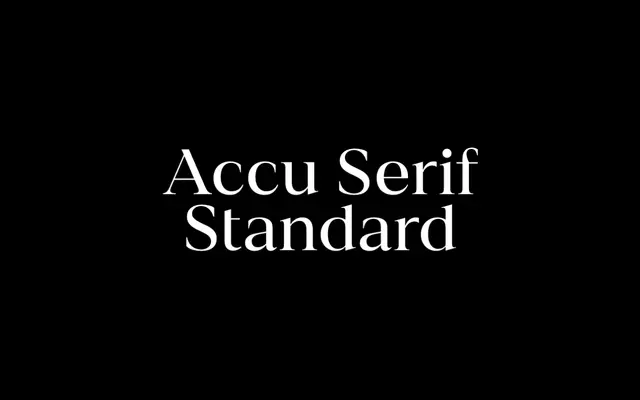
af Accu Serif
af Accu Serif specimen from a.Foundry
A contemporary serif with nine weights, matching italics and a variable font, designed with a tall x-height and rhythm borrowed from sans-serif construction.
Released in 2024 by a.Foundry, af Accu Serif spans 18 styles across nine weights from Thin to Black, each with an italic, plus a variable font. The tall x-height and sans-influenced glyph rhythm make it practical for screen use, while the serifs keep it anchored in traditional typographic convention. A condensed subfamily extends its range, and OpenType features include ligatures, fractions, superiors, inferiors and stylistic sets.
A contemporary serif with a tall x-height and glyph rhythm drawn from sans-serif aesthetics, sitting between traditional serif heritage and modern digital-first design sensibilities.